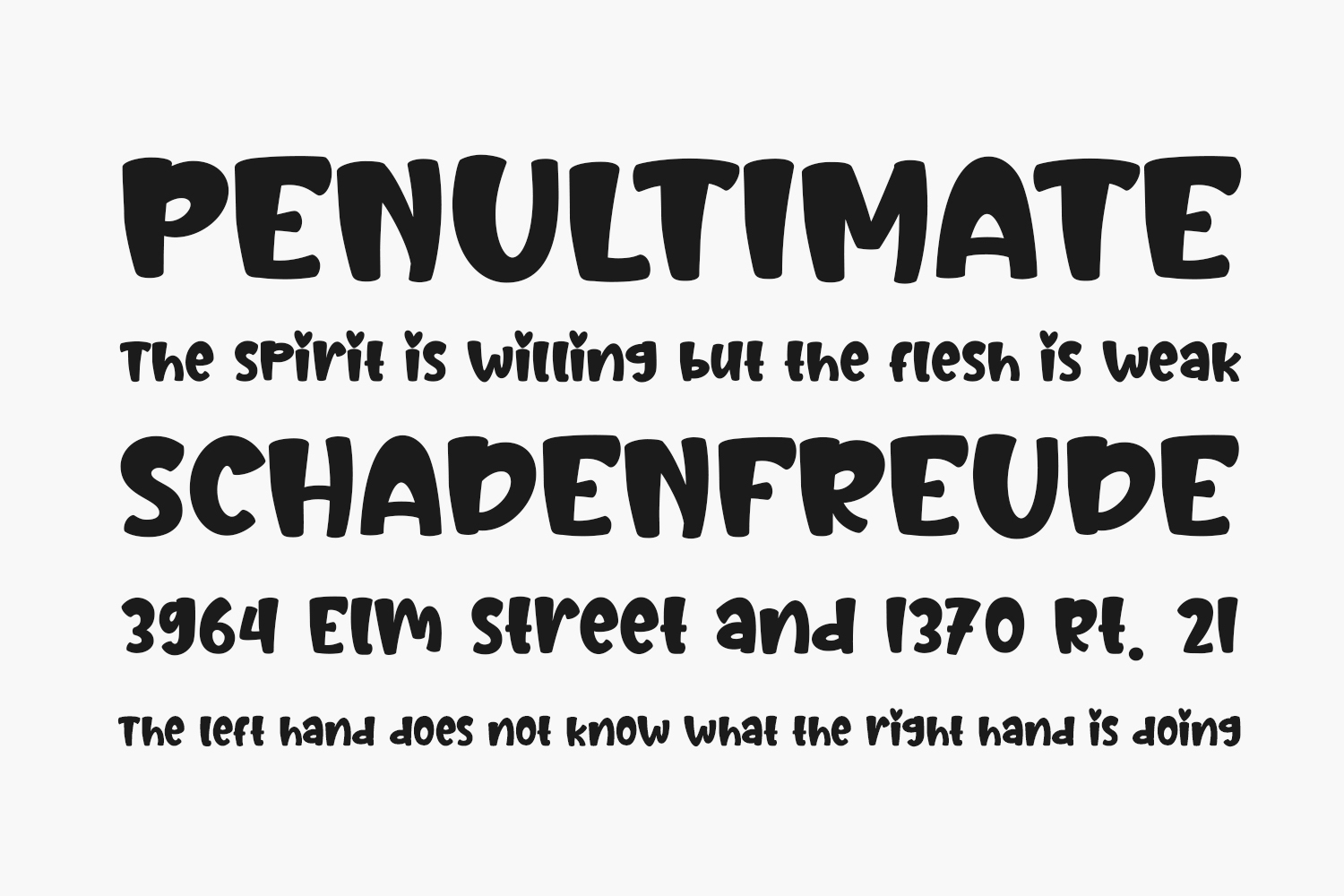
Discover the epitome of coolness and trendiness with Malinda Free Font, a captivating display font that will elevate any creative idea to the status of a genuine work of art. Whether you seek fonts to enhance your Instagram posts or calligraphy scripts for your DIY projects, Malinda is the perfect choice. Unlock the true potential of your creativity with this remarkable font. Malinda Free Font is free for personal use only. Please purchase the full version for commercial use.
Designed by Nirmala Creative